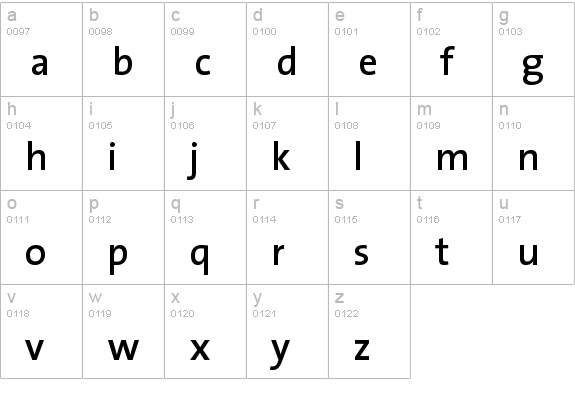
TheSans B6 SemiBold is a sub-bold, structured variant in the TheSans typeface family \xE2\x80\x94 well suited to sub-headlines and emphasised passages.
TheSans B6 SemiBold font is a masterpiece of typographic design that effortlessly combines elegance with strength. With its sleek curves and bold strokes, this font exudes confidence and professionalism. It is the perfect choice for those seeking a font that communicates a sense of power and authority. TheSans B6 SemiBold font is a versatile typeface that can be used in a variety of design projects. Whether you are creating a logo, designing a website, or crafting a marketing campaign, this font will add a touch of sophistication and style to your work. One of the most appealing aspects of TheSans B6 SemiBold font is that it is freely available to download at FontsMarket.com. This means that designers and creatives can easily access and utilize this exceptional font without any financial burden. The fact that it is free does not compromise the quality or craftsmanship of the font; in fact, it only enhances its desirability. TheSans B6 SemiBold font is a true gem in the world of typography. Its clean and modern aesthetic, combined with its bold and impactful presence, make it a must-have for any designer or creative professional. So, why wait? Visit FontsMarket.com today and download TheSans B6 SemiBold font for free to elevate your designs to new heights of excellence.